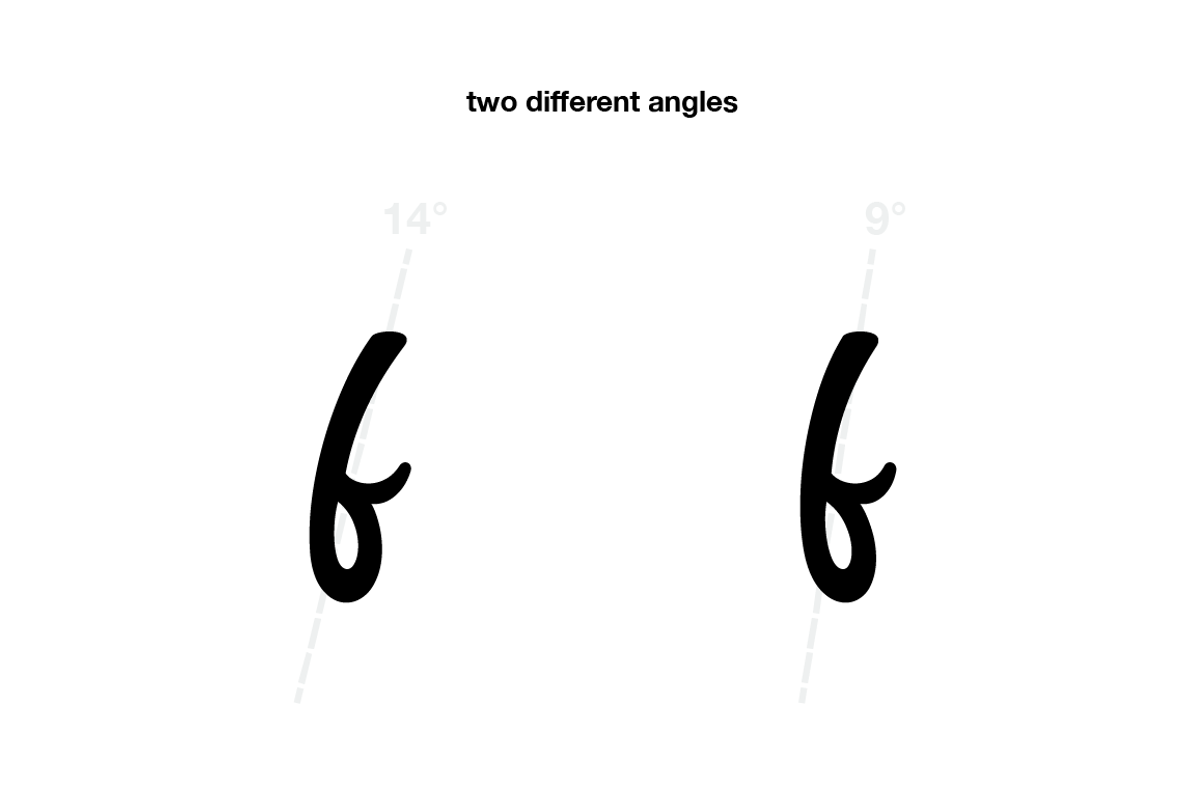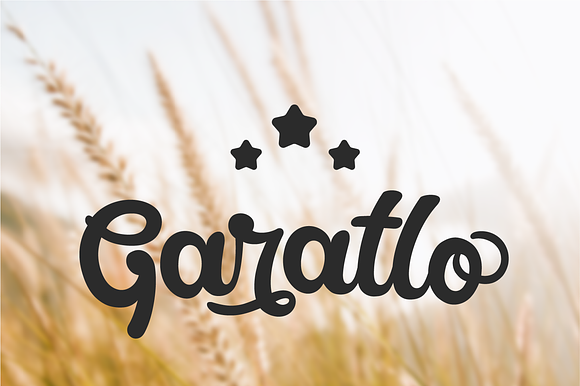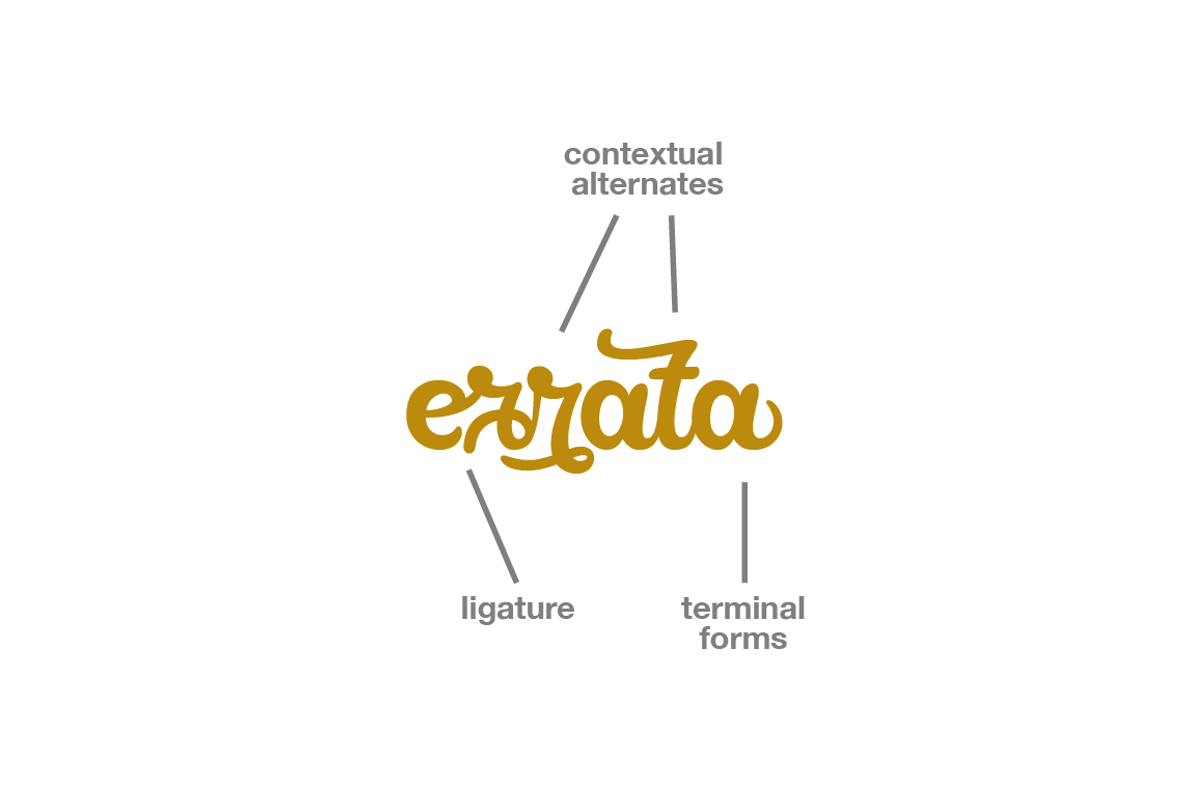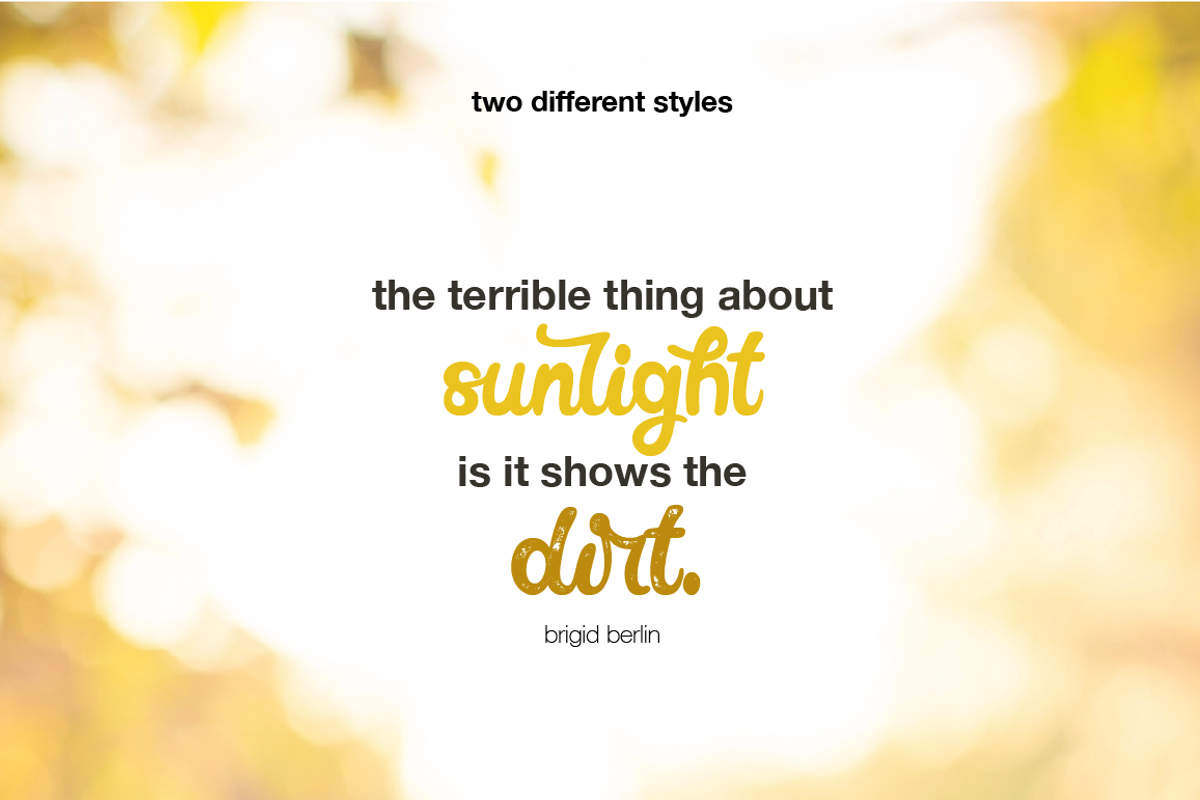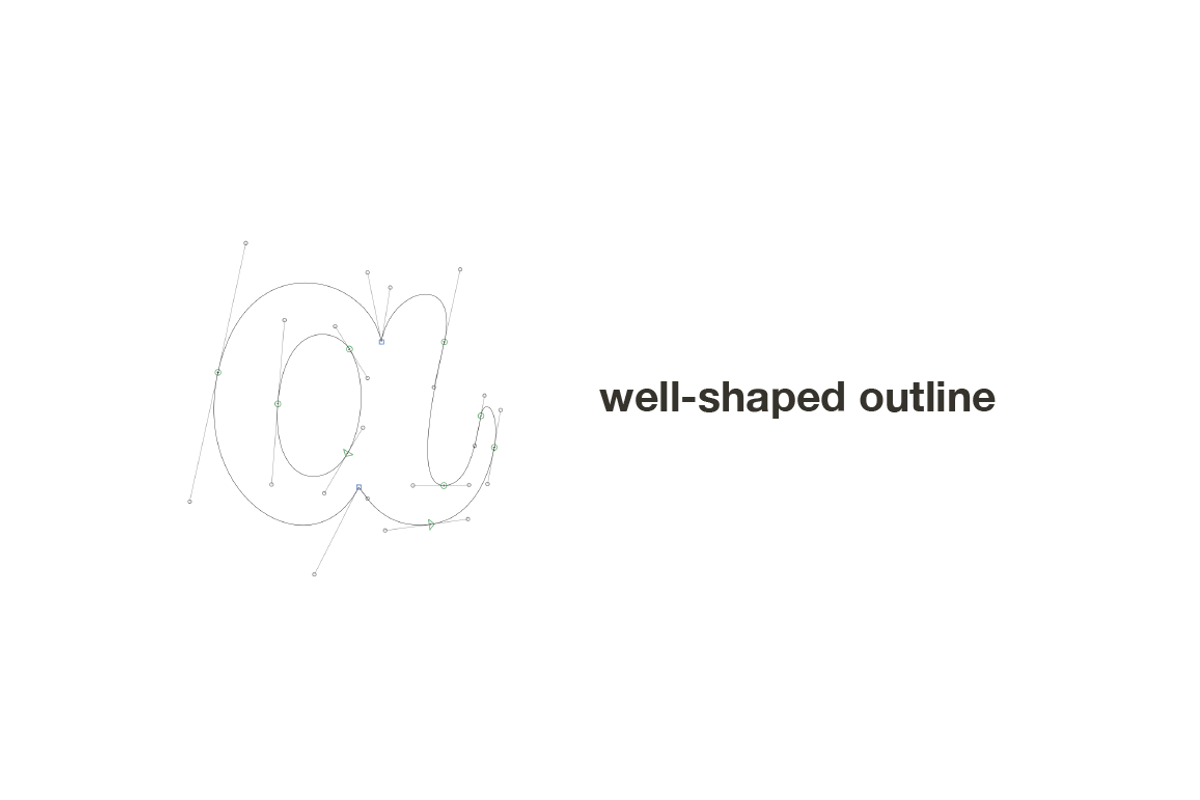
Garatlo I Script Family
Our new script font is available! Garatlo has a very modern look and is perfect for any kind of logo, presentation, headline or other stuff. You can also try the alternative letters to add some personal touch.
- Garatlo Regular
- Garatlo Rough
- Garatlo Rough Slant
- Garatlo Slant
Why Garatlo I Script Family is worth a look
Garatlo I Script Family by Shaped Fonts fits naturally into Branding, posters, packaging, typography.